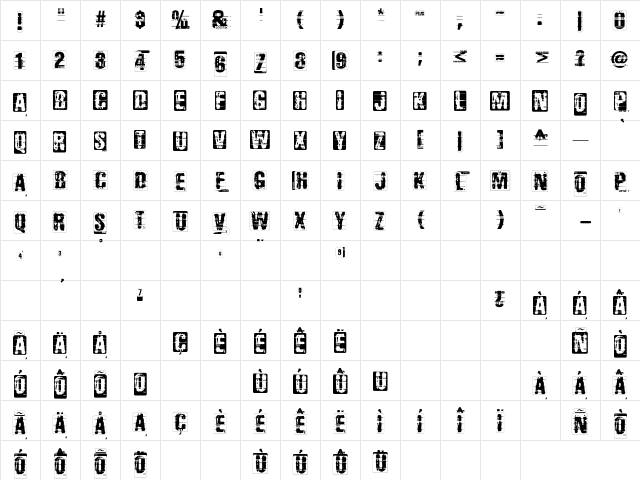
Phlax Regular
Phlax Family
Phlax Regular
Design Context for Phlax
Phlax is a composed and adaptable typeface that performs quietly and consistently across a wide range of design contexts.